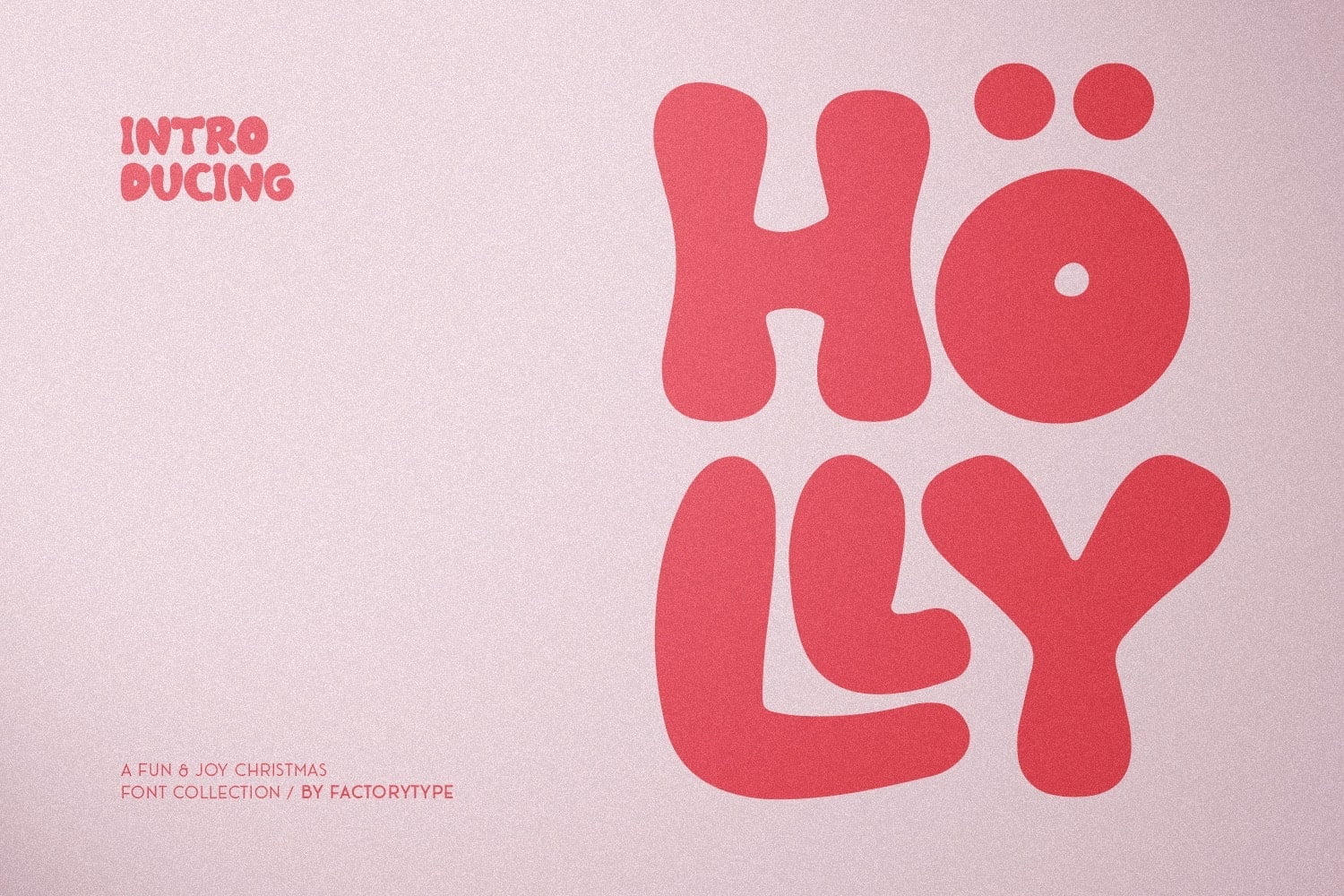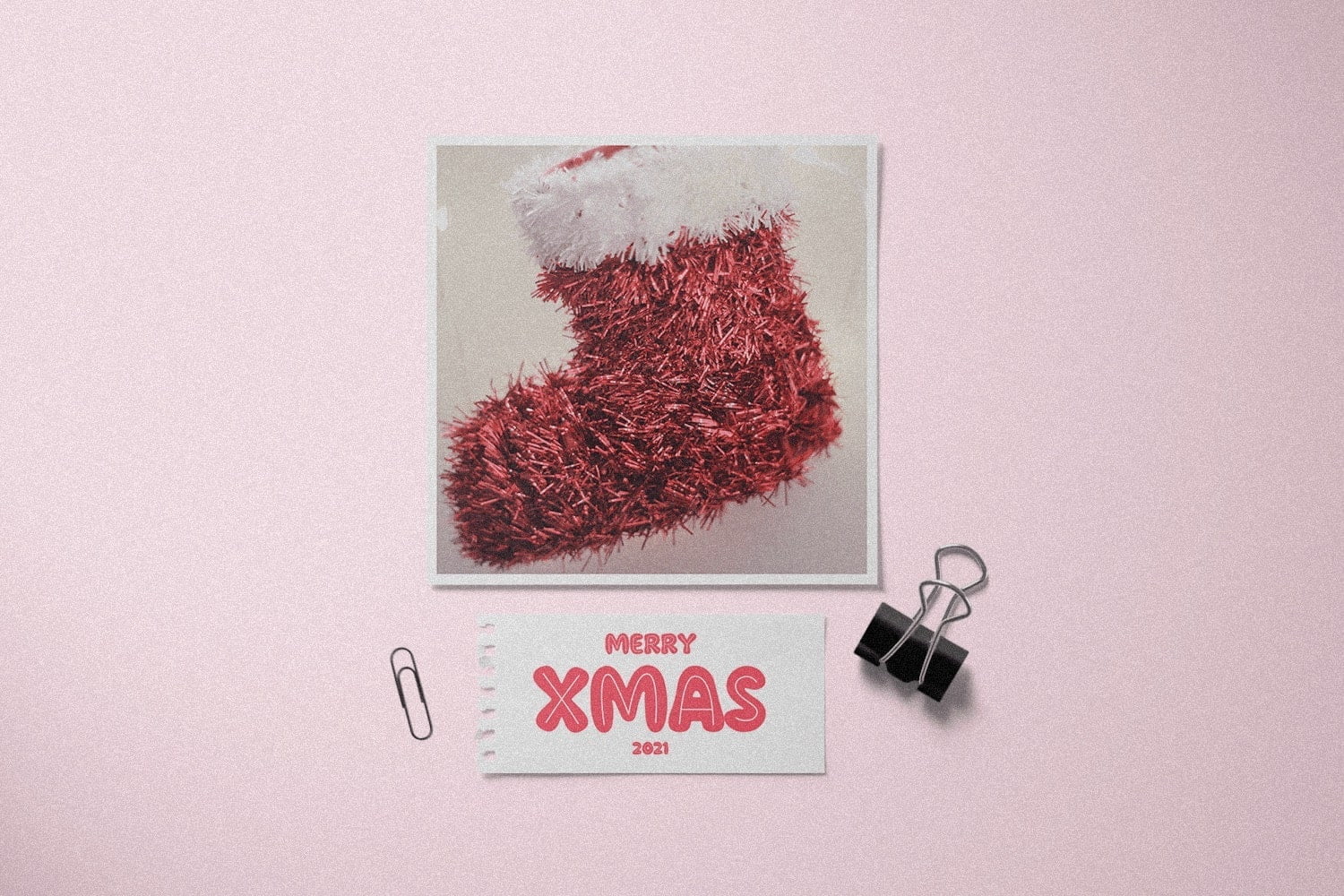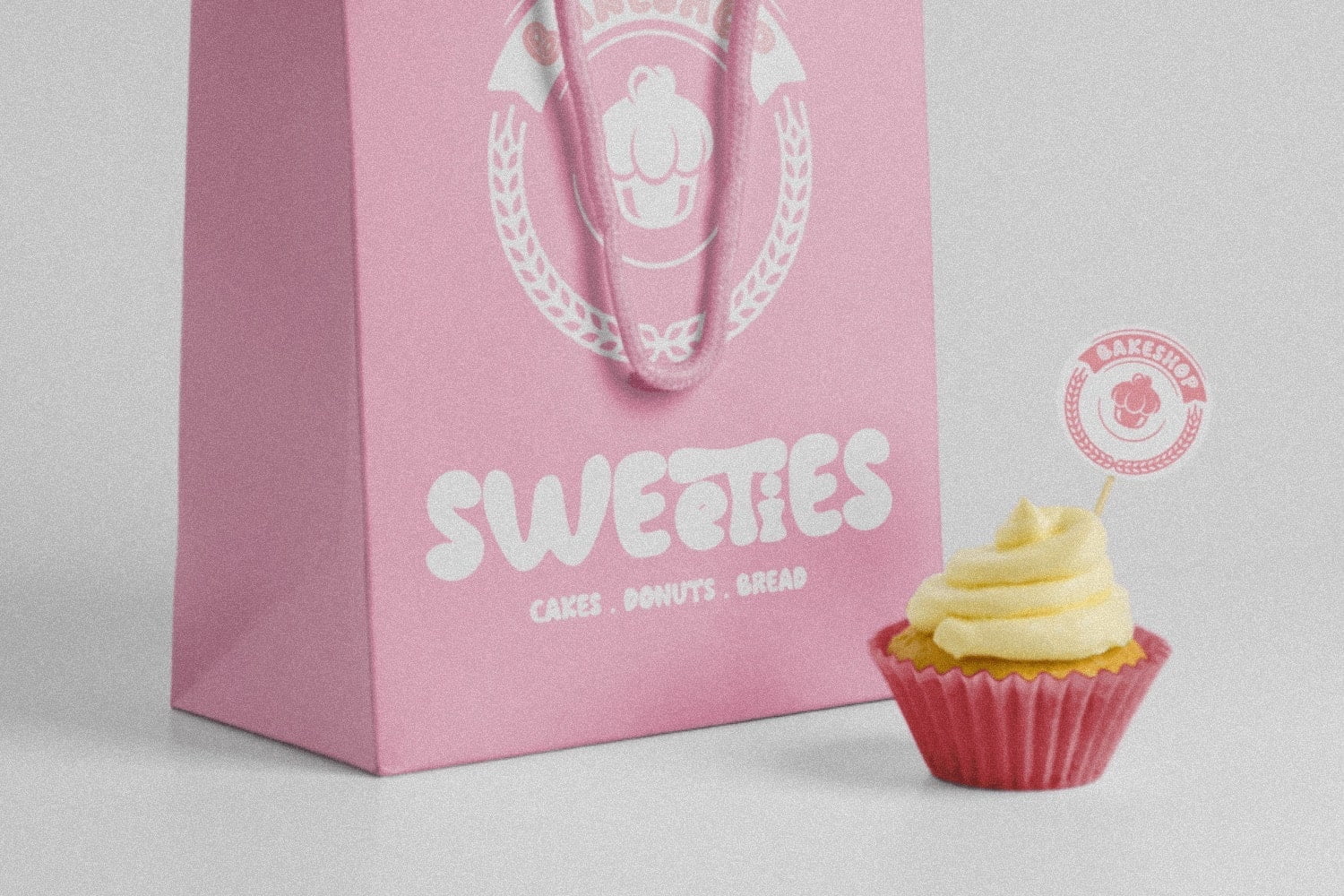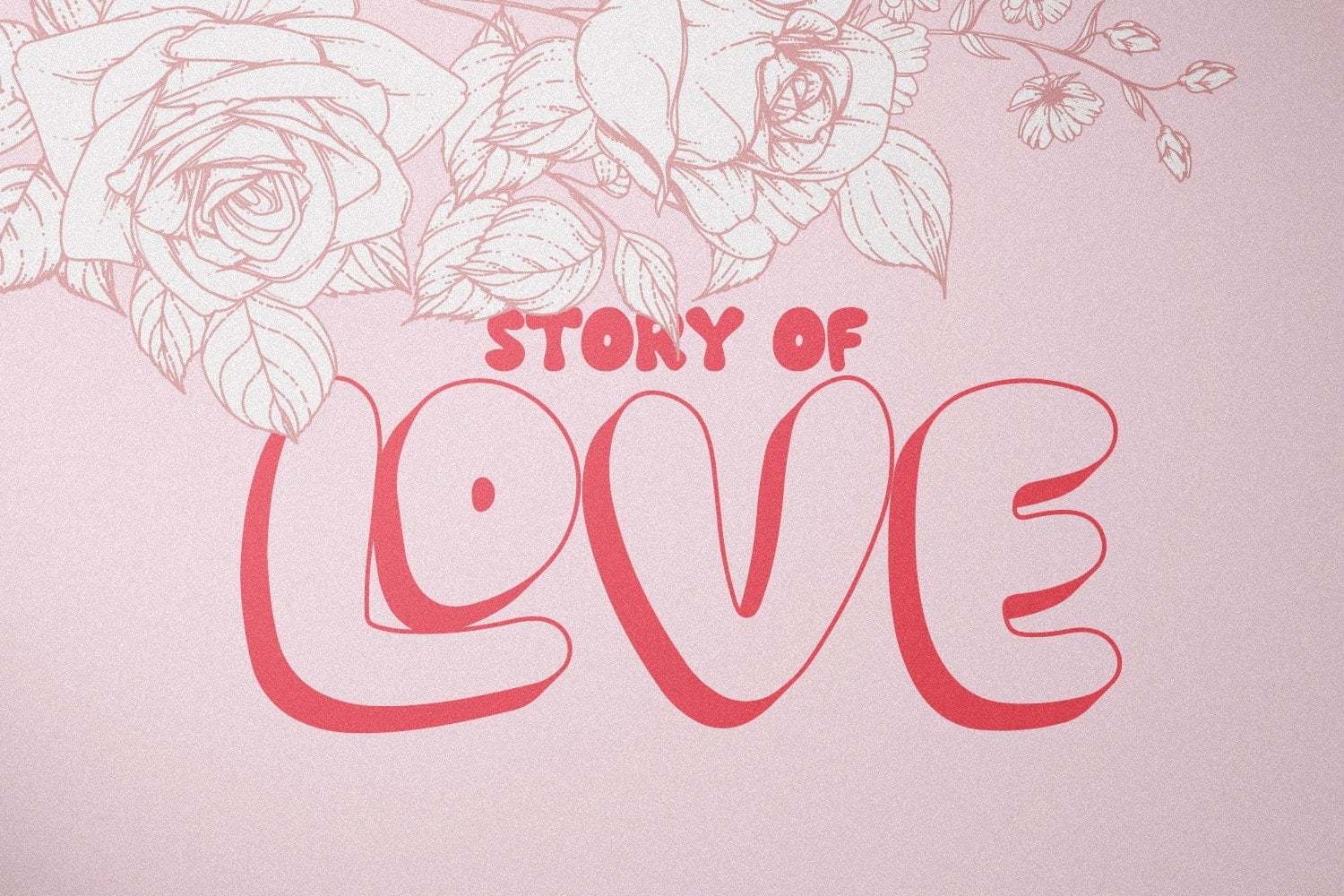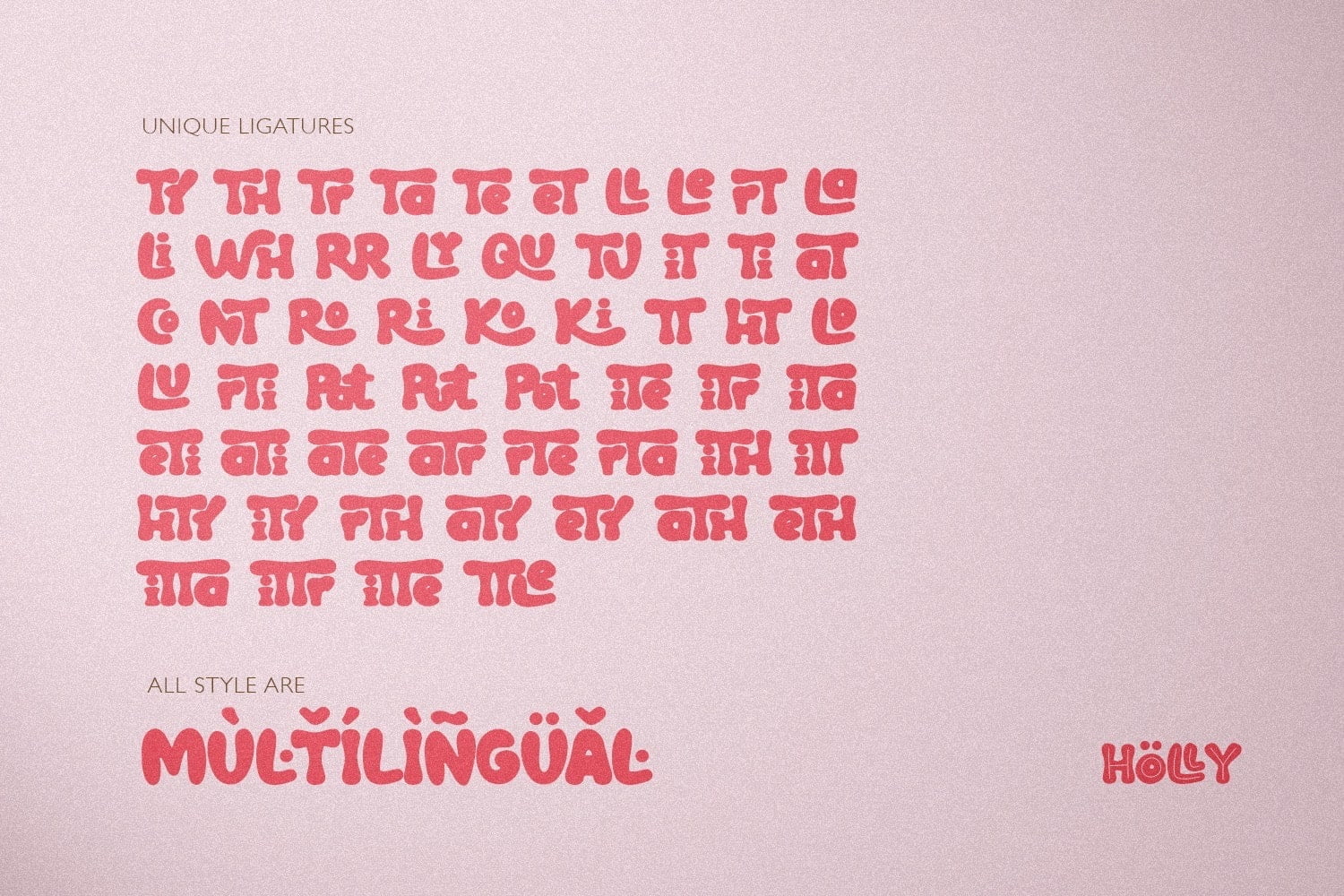
We’ve designed a fun Christmas font to help you celebrate the holiday season. Holly is not only fun and festive, but also very legible. So whether you’re planning a winter wonderland party or working on gift cards and labels, this font will help get your creative juices flowing.
- 5 Styles (Dancer, Comet, Cupid, Donner, Rudolph)
- Stylistic Ligatures and Alternate Glyphs
Holly Christmas Font